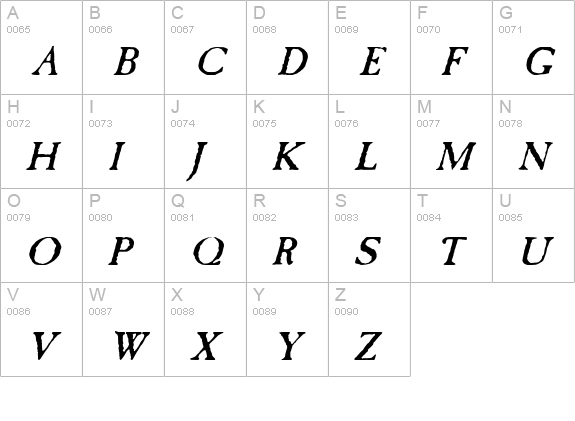
CasablancaAntique Italic is a distinctive, italic variant in the CasablancaAntique typeface family \xE2\x80\x94 well suited to design and typography projects.
CasablancaAntique Italic font is a stunning display typeface that exudes elegance and sophistication. With its ornate details and vintage charm, this font is perfect for adding a touch of old-world glamour to your designs. The graceful curves and intricate flourishes of CasablancaAntique Italic will transport your audience to a bygone era, making it ideal for projects that require a touch of nostalgia. What's even better is that CasablancaAntique Italic font is available for free download at FontsMarket.com. So you can add this timeless font to your collection without breaking the bank. Whether you're working on invitations, posters, branding, or any other creative project, CasablancaAntique Italic font is sure to make a lasting impression. Download it now and let your designs shine with its classic beauty.